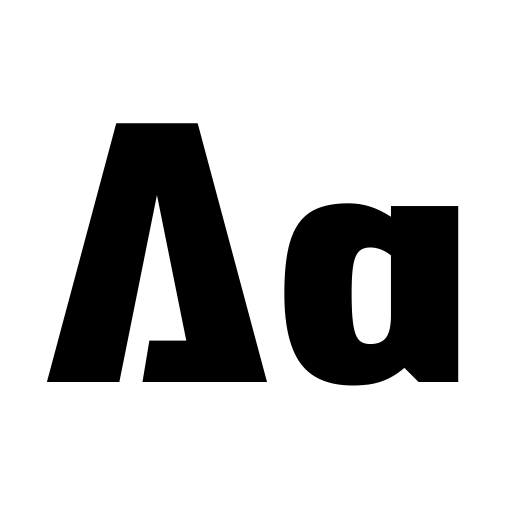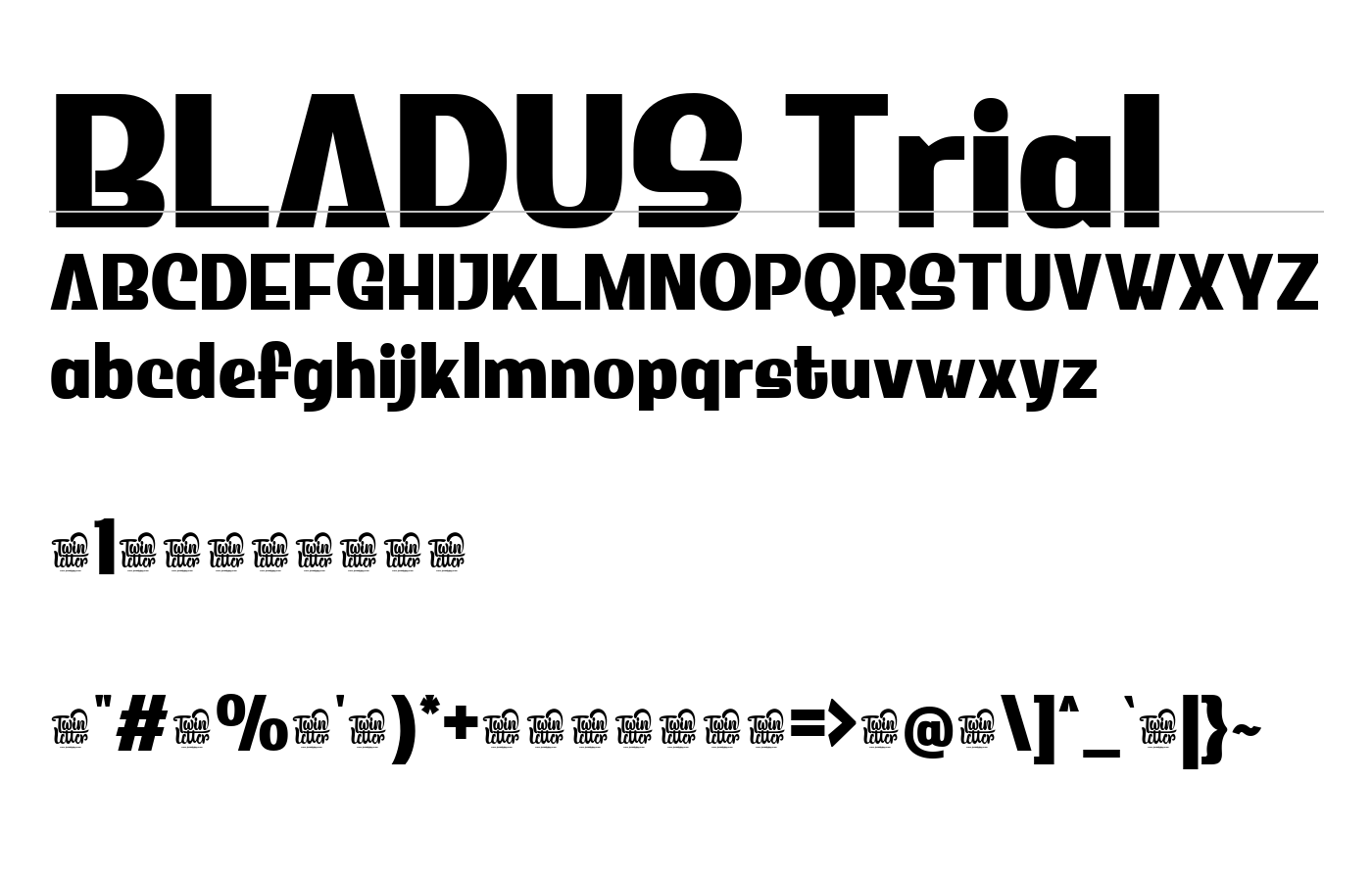
BLADUS Trial Font is a bold, geometric sans serif typeface with a strong presence and wide proportions, making it perfect for impactful headlines and modern branding. Its clean, solid strokes and distinct letterforms give it a contemporary, confident feel suitable for logos, posters, and editorial designs that demand attention. This font works best where clarity and a bold statement are key, lending a stylish yet powerful personality to creative projects.
BLADUS Trial Font
About BLADUS Trial Font
| Designer | Ojak |